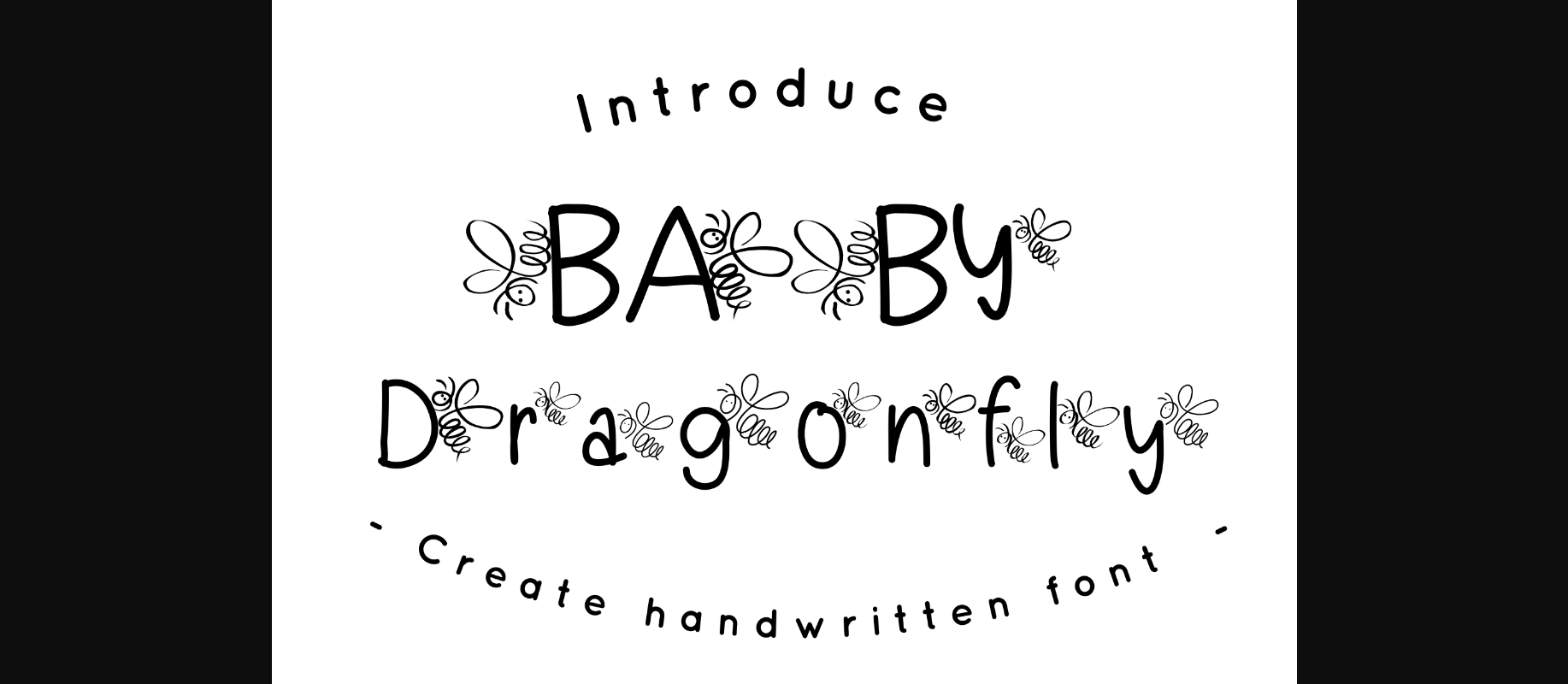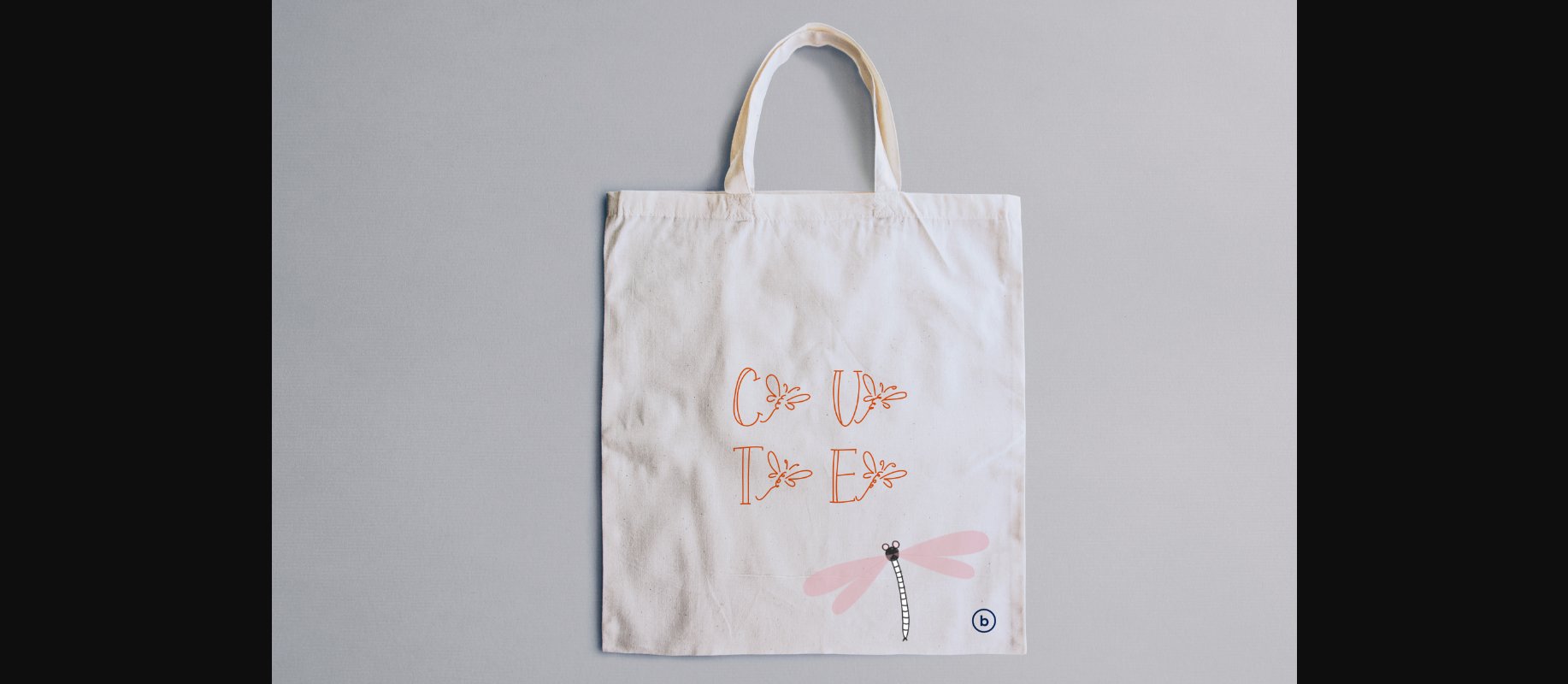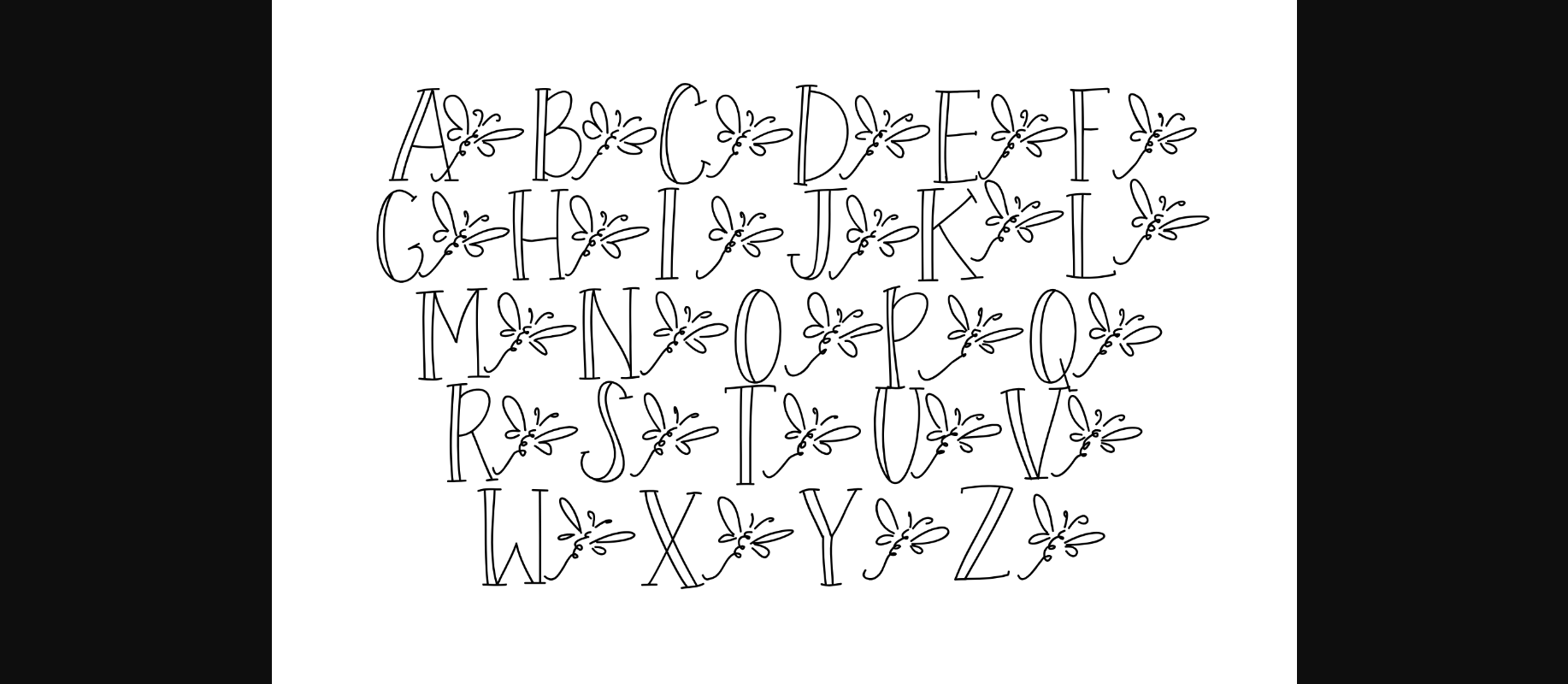
Baby Dragonfly Font
About Baby Dragonfly Font
Baby Dragonfly is a sweet and original decorative font, featuring dragonfly ornaments. Get inspired by its distinct and cute feel and create spectacular designs with Baby Dragonfly!